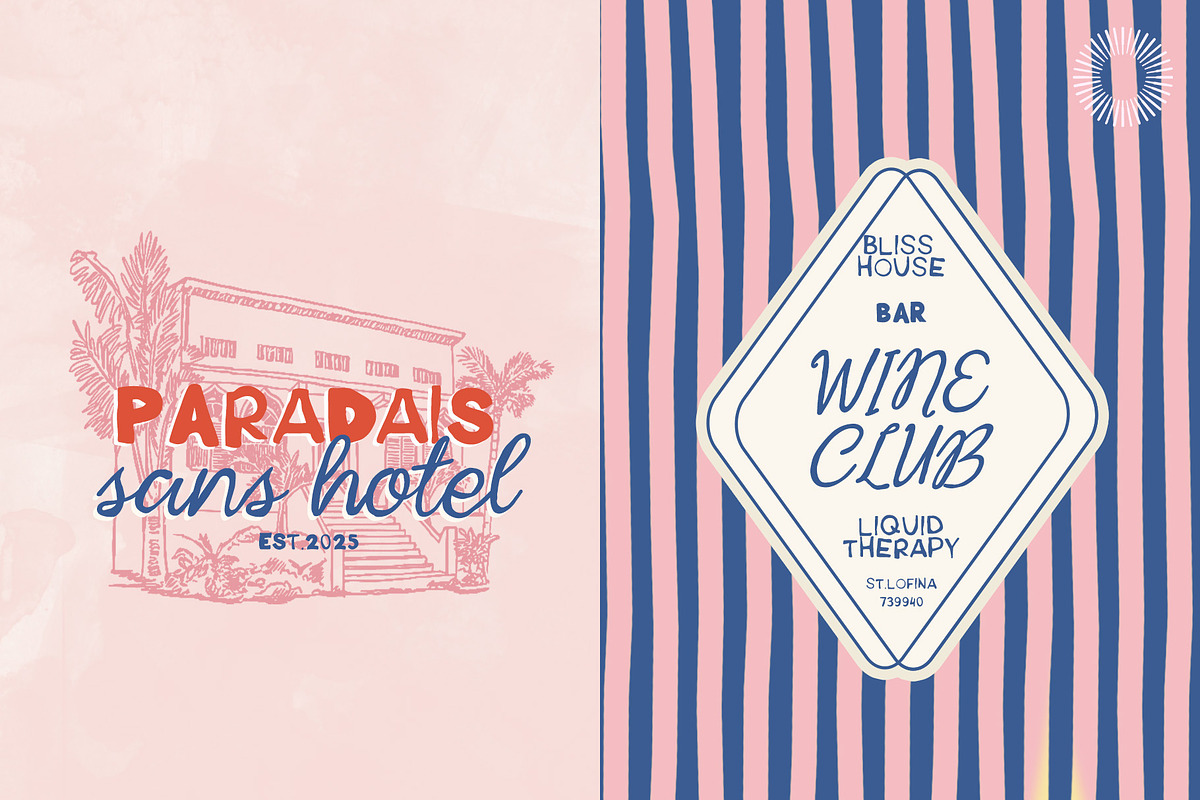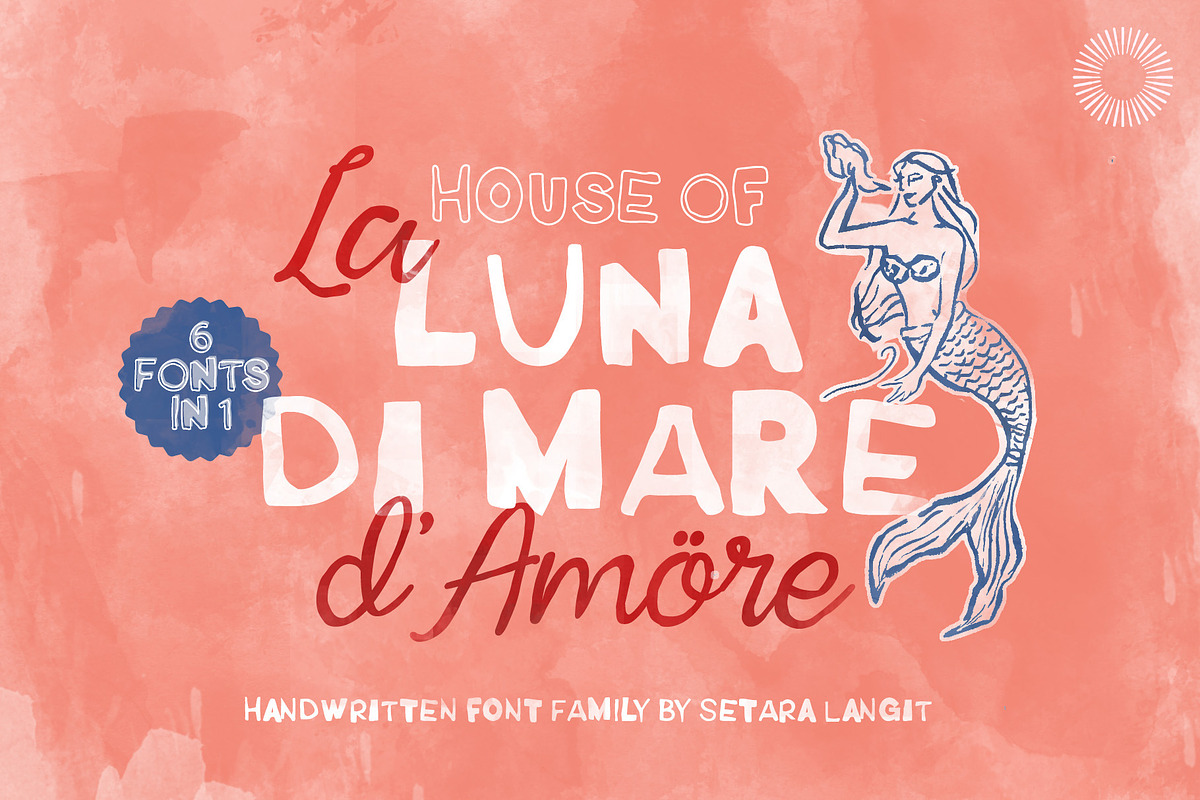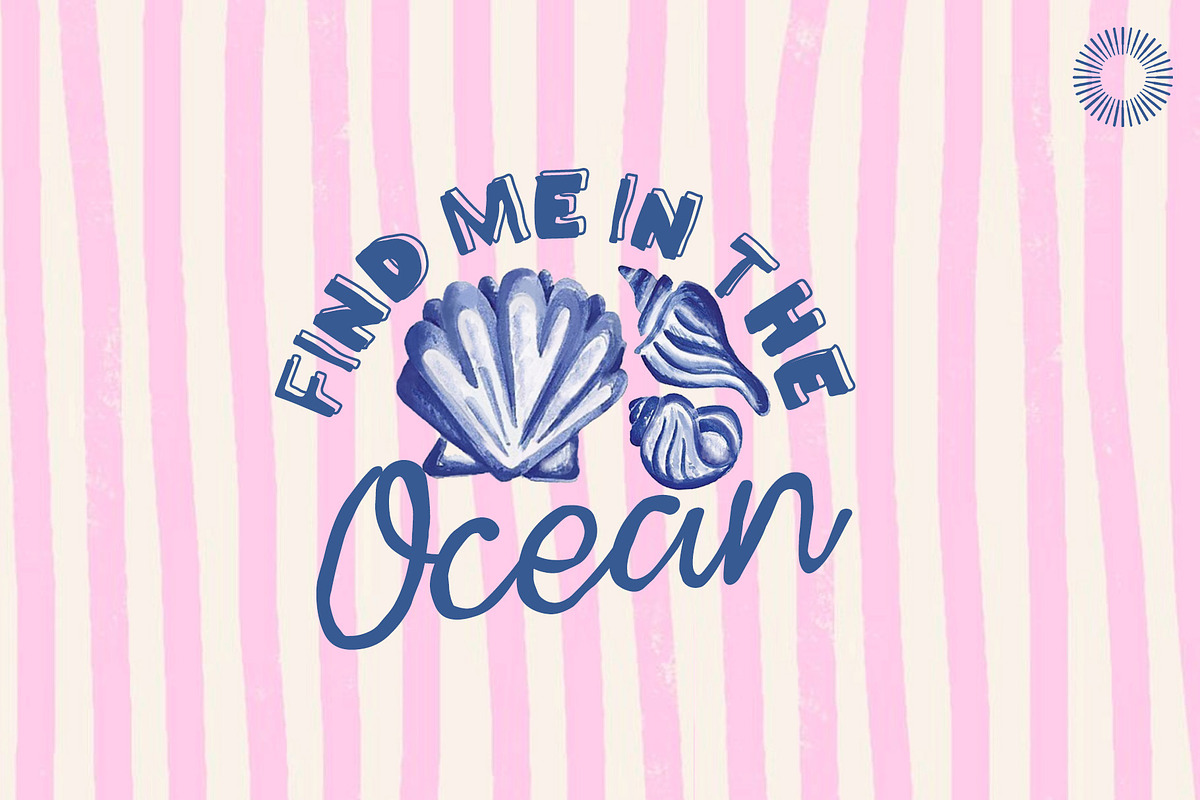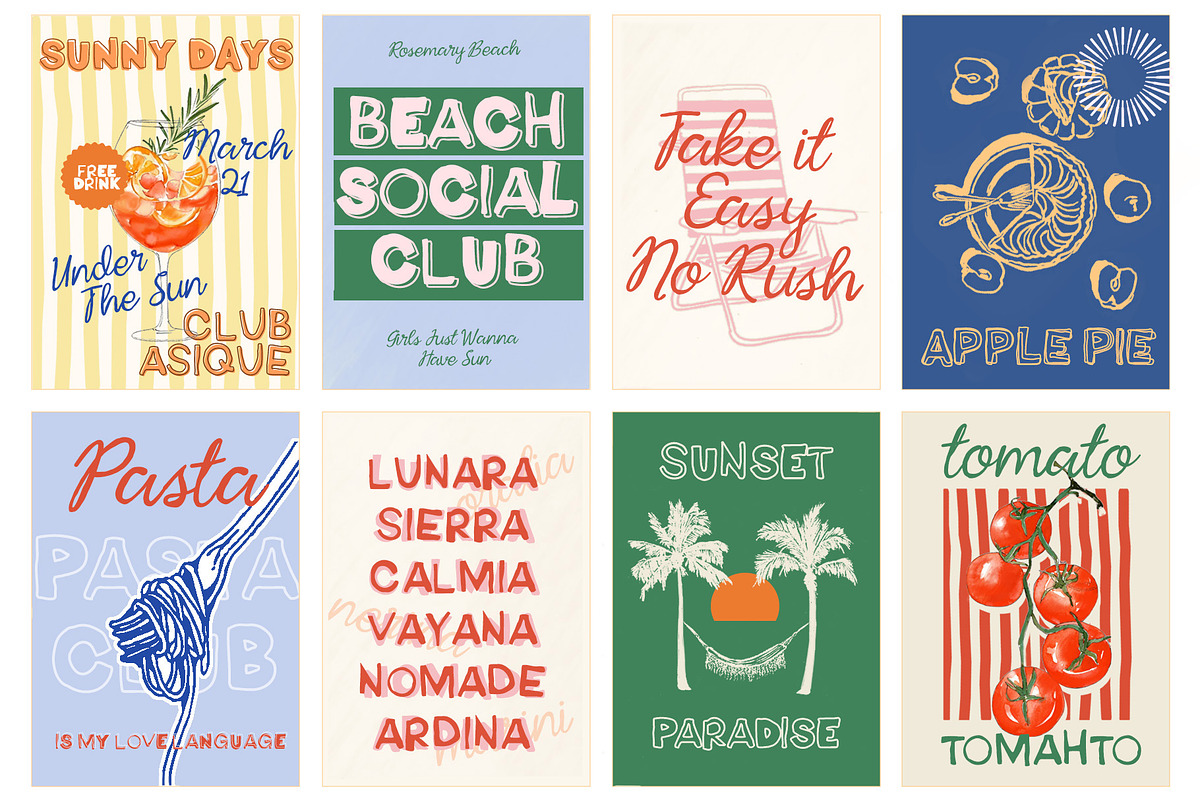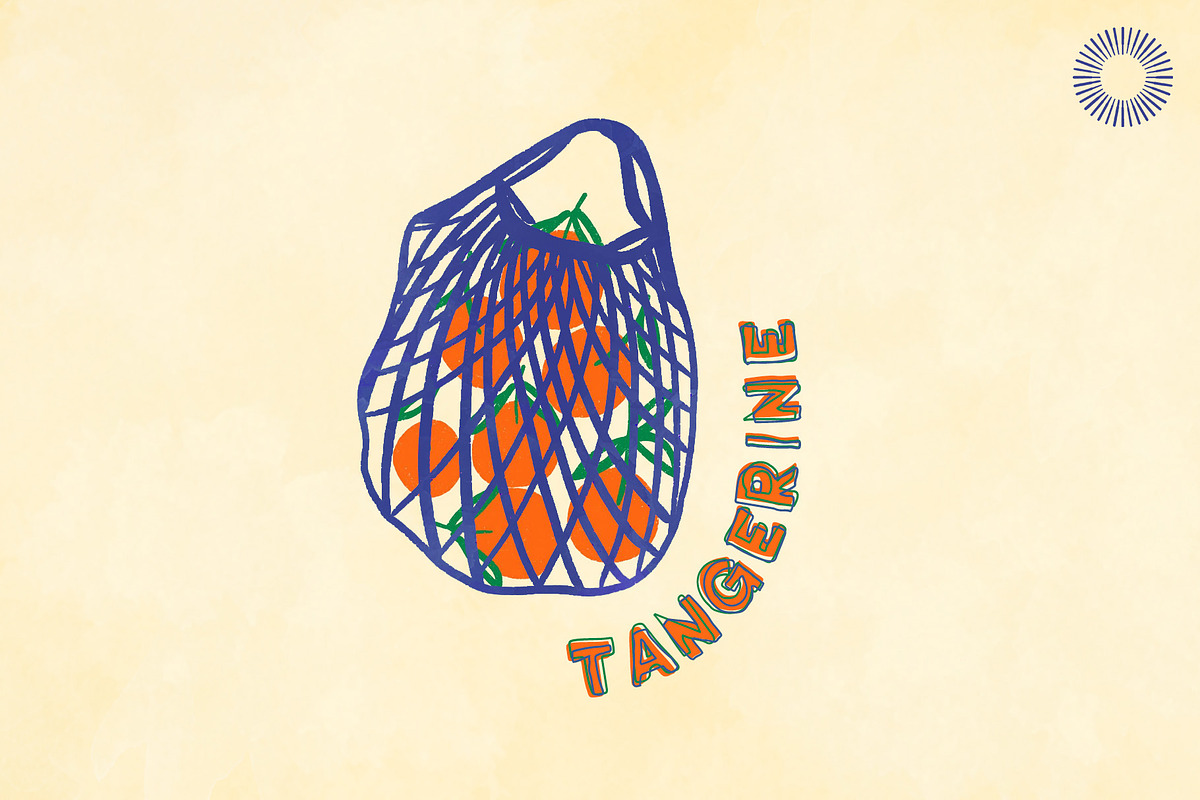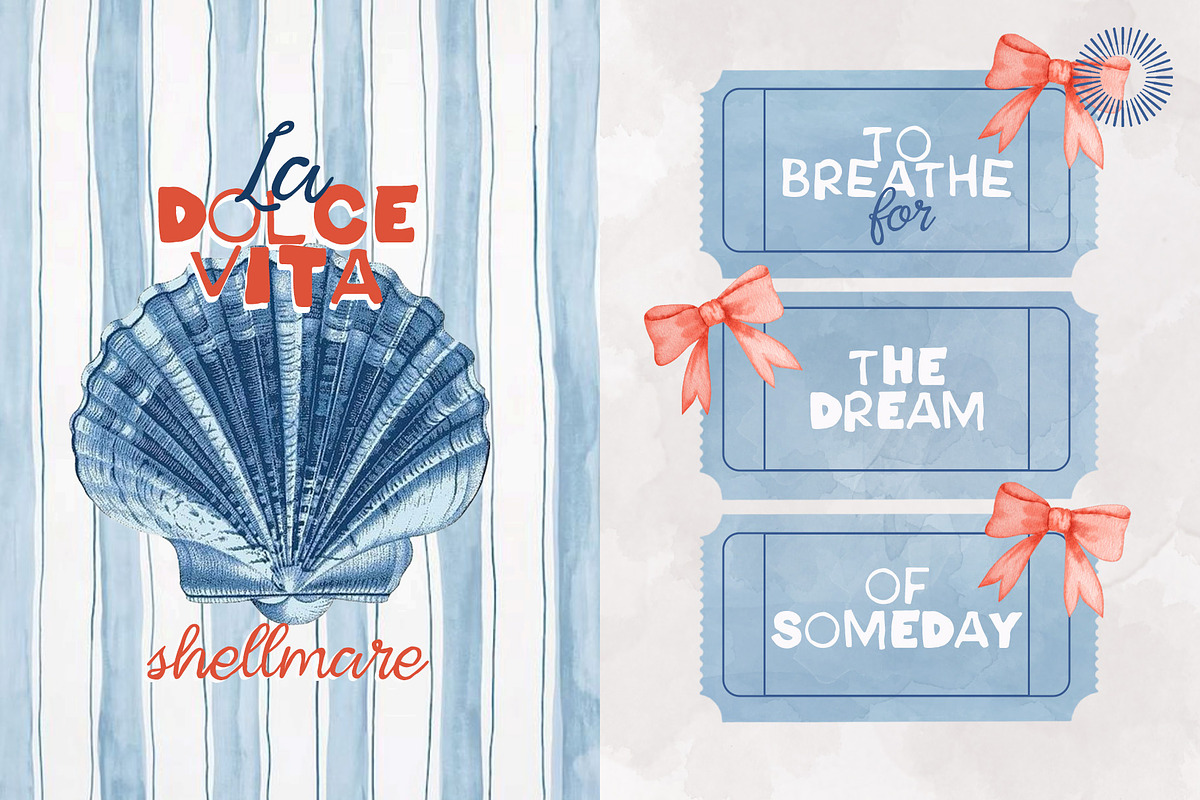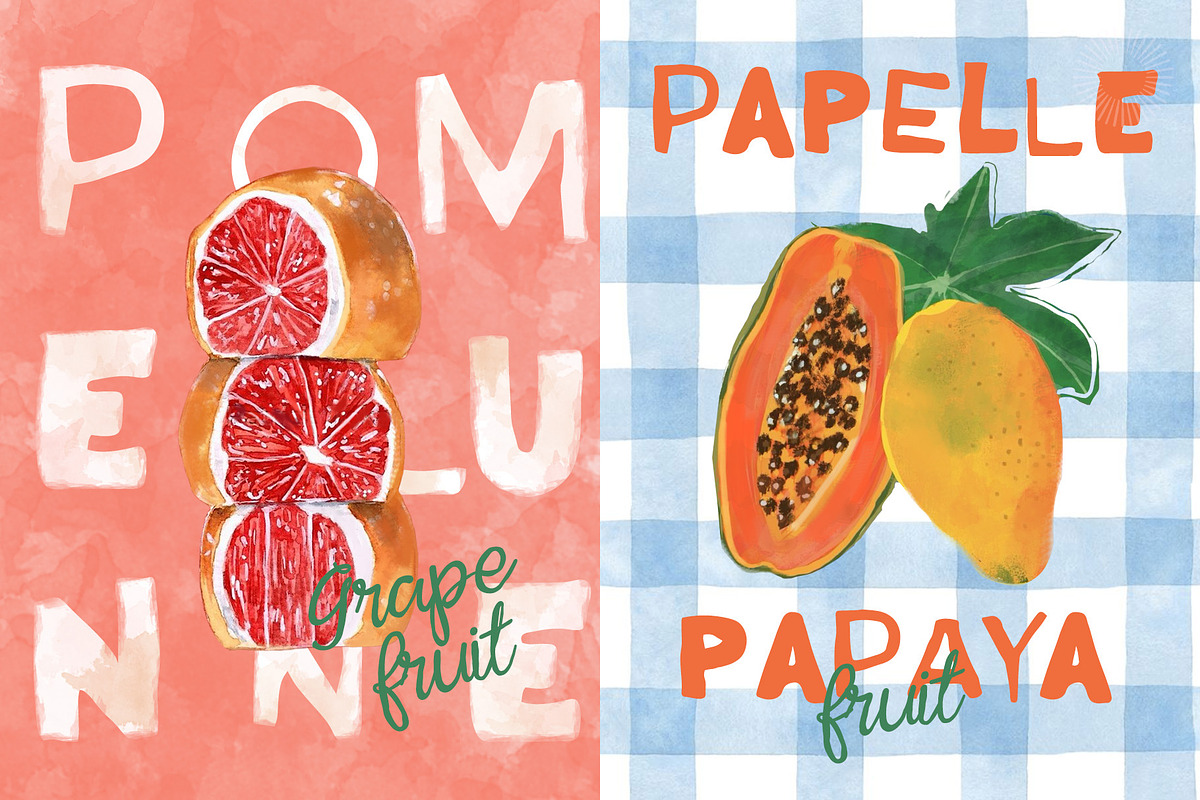
Luna di Mare - Messy Sans
Luna di Mare – Messy Sans is a whimsical sans serif font family that embraces the beauty of imperfection. Inspired by freehand brush strokes and organic letterforms, this 6-in-1 font set brings coastal charm and playful soul into every character. Whether you're creating dreamy brand logos, editorial titles, or boho packaging, Luna di Mare offers the freedom to mix and match styles for an effortless, hand-crafted look.
Each font in the family is slightly different—some bold and chunky, others light and airy—giving you endless creative combinations that feel alive, expressive, and joyfully undone.
Let your typography flow like the sea—with heart, warmth, and character.